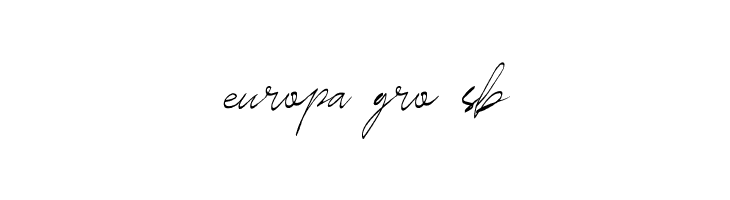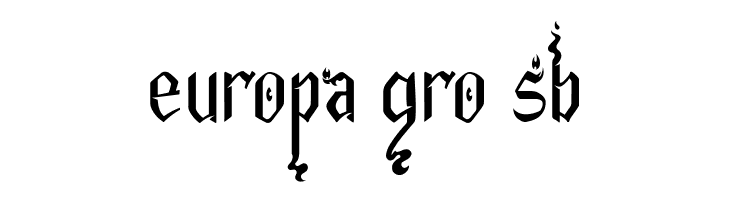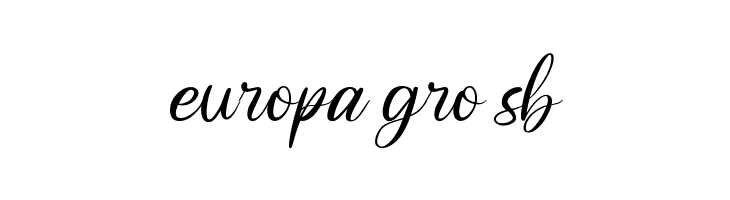
A sophisticated script font with flowing, interconnected letters and ornate swashes.
An elegant and decorative script font with intricate swirls and loops.
A dynamic brush script font with expressive, flowing strokes.
An elegant, flowing script font with a sophisticated, handwritten style.
A decorative font with vintage and modern influences, featuring playful curves and artistic flair.
A flowing, cursive script font with elegant, interconnected strokes.
A bold, expressive brush-style font with a hand-painted appearance.
A dramatic, gothic-inspired font with sharp, angular lines and intricate detailing.
A dramatic, calligraphic font with sharp, angular strokes and expressive details.
An elegant, flowing script font with intricate loops and modern flair.